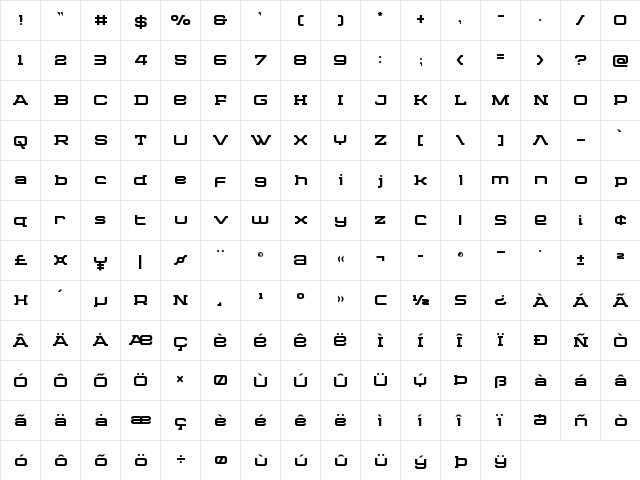
Cydonia Century Regular
Design Context for Cydonia Century Typeface
Cydonia Century takes a measured approach to typography — its balanced proportions and neutral character make it a reliable workhorse for both digital and print work.